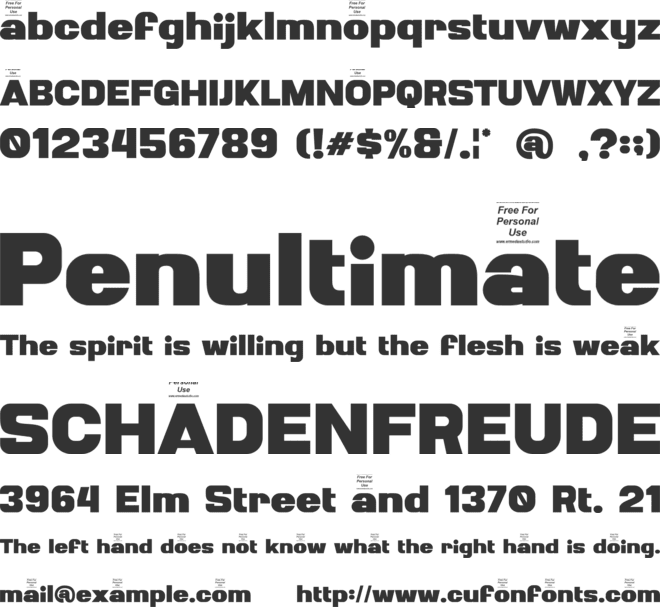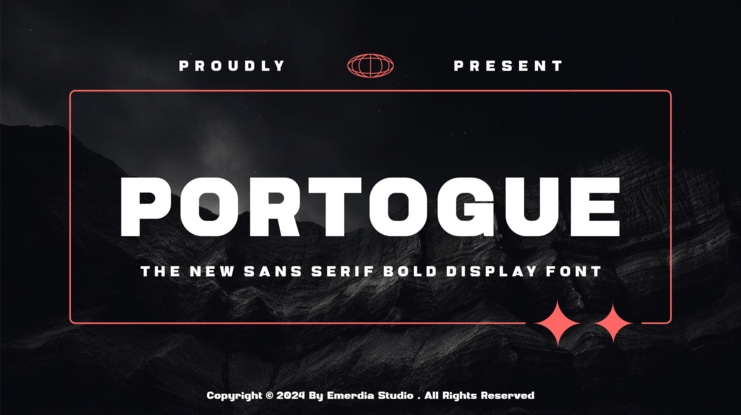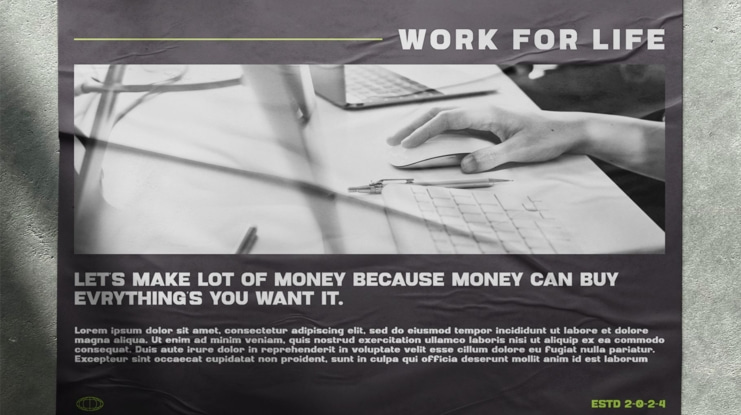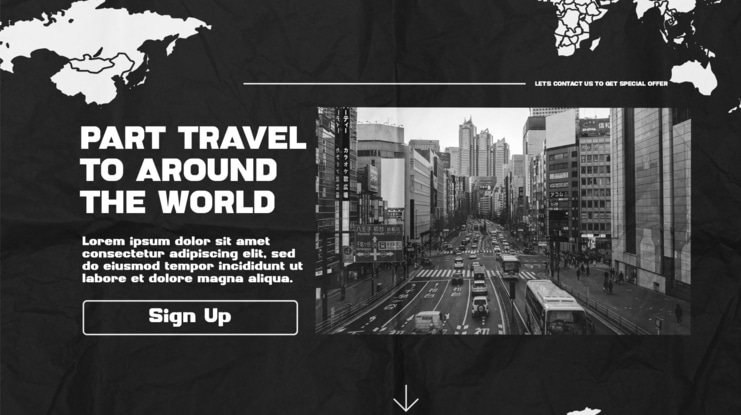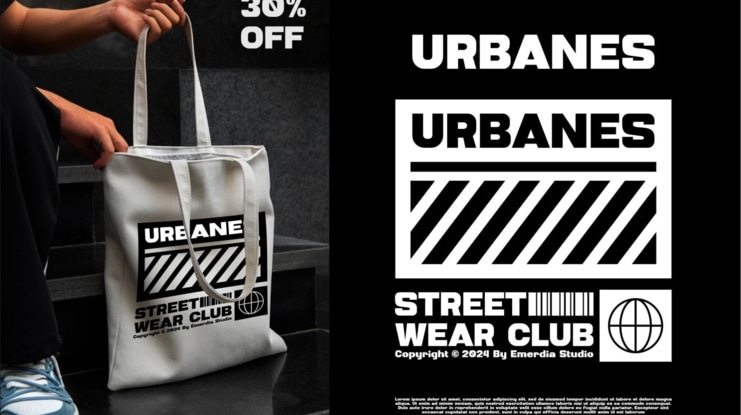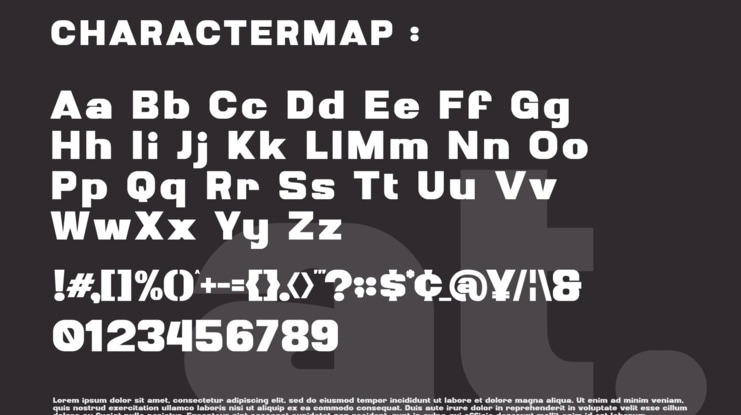
Portogue Font
Introducing Portogue The New Sans Serif Unique Display Font is a modern, trendy, elegant and futuristic display font. It has a unique character. It is perfect to be combined with invitation card designs, company logos, movie titles, movie names, business cards, book titles, brand names and various other designs.
FEATURE
- Uppercase and lowercase
- Numbering and Punctuation